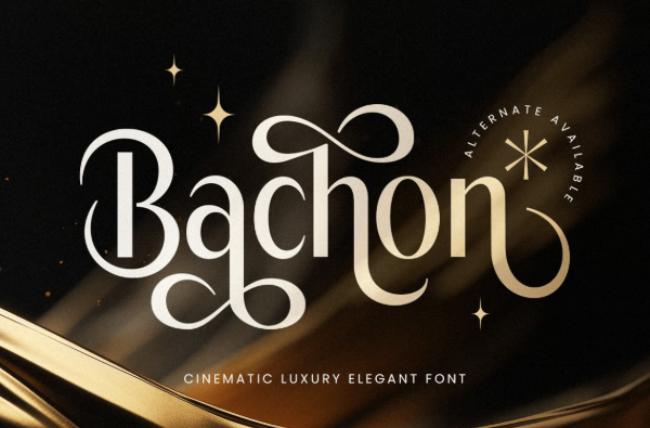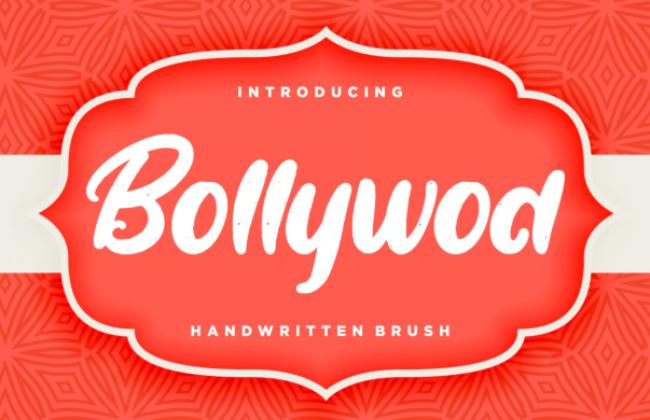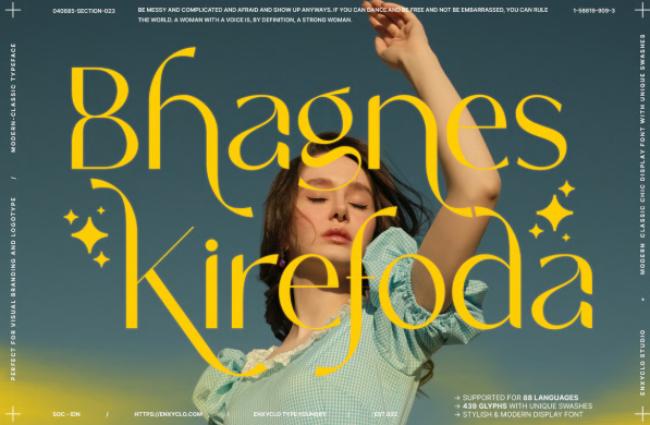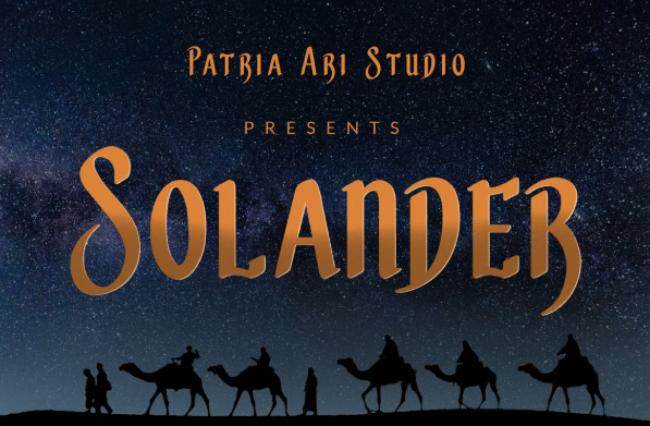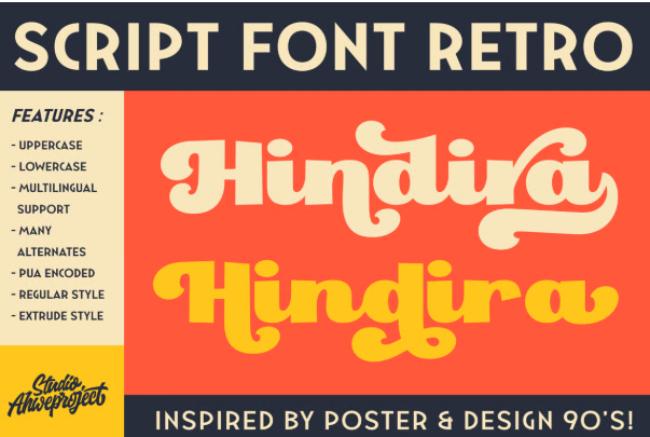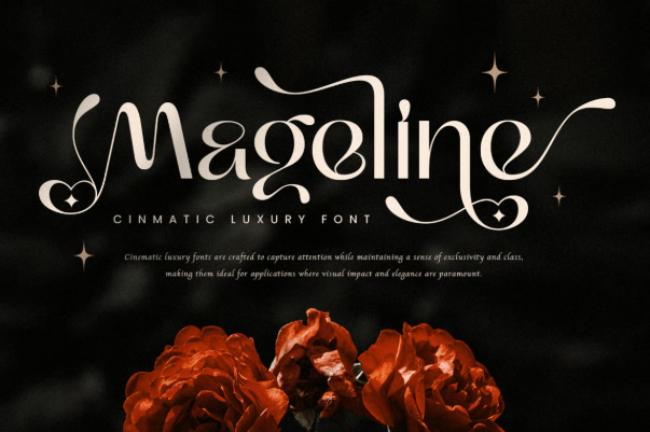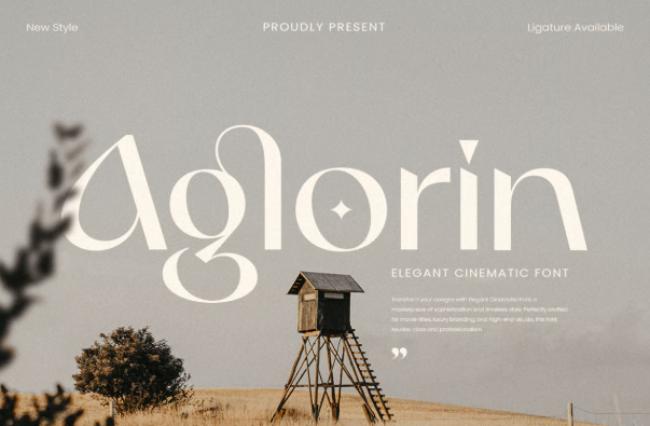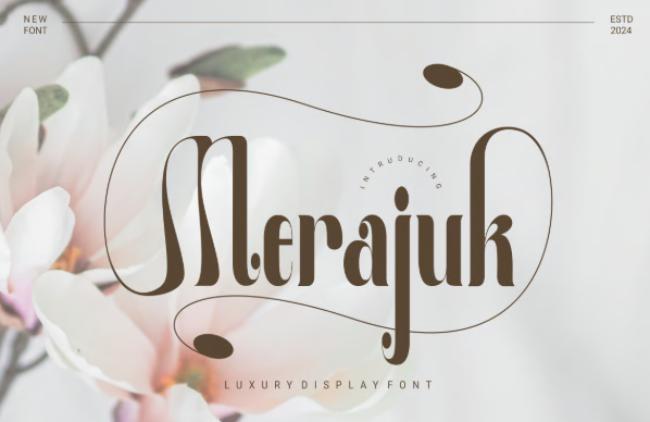
Bollywood fonts capture the vibrant essence of Indian cinema with their dramatic flair and cultural authenticity. Whether you’re designing movie posters, cultural events, or brand identities, these Bollywood style fonts bring the magic of Indian storytelling to your projects. From elegant script styles to bold display typefaces, Bollywood fonts offer designers a rich palette of options that celebrate India’s cinematic heritage. Each Bollywood font in this collection carries its own personality – some channeling vintage poster aesthetics while others embrace modern sophistication. These carefully curated Bollywood style fonts will transform your designs with their distinctive character and cultural depth.
Bachon – Cinematic Luxury Elegant Bollywood Font
BACHON delivers cinematic grandeur with its luxurious appeal and sophisticated styling. The typeface showcases elegant contrasts and smooth curves that evoke timeless beauty, making it an excellent choice for premium brand identities, movie credits, upscale product packaging, and fashion magazine layouts.
Bollywod Handwritten Bollywood Font
Bollywod brings authentic handwritten charm to your creative projects. This versatile typeface works wonderfully for brand development, logo creation, wedding invitations, social media graphics, marketing campaigns, product labels, design projects, photography watermarks, invitation cards, and stationery items that need a personal touch.
Bhagnes Kirefoda – Modern Chic Display Bollywood Font
NCL BHAGNES KIREFODA stands out as a contemporary sans-serif design featuring distinctive decorative elements. This expertly crafted typeface has been developed to become a designer favorite, capable of elevating any creative concept to professional standards. While optimized for large text applications, it retains its visual appeal even in smaller sizes.
Solander Bollywood Style Font
Solander features bold, angular letterforms designed to strengthen your brand presence and project identity. This dynamic typeface excels in various applications including logo design, brand development, headline text, poster creation, signage systems, advertising materials, inspirational quotes, product packaging, design labels, photography branding, watermarks, special event materials, and versatile design projects.
Hindira Bollywood Font
Prepare to be captivated by Hindira, a nostalgic script typeface drawing inspiration from 1990s poster aesthetics and retro design culture. With its bold, playful, and character-rich letterforms, Hindira transforms your creative work into something truly memorable and distinctive.
Mageline – Cinematic Luxury Bollywood Font
Mageline represents a sophisticated sans-serif design that masterfully combines grace with strength in an enduring style. Created specifically for premium applications like film credits, fashion brand identity, luxury product packaging, and editorial publications, Mageline provides dramatic yet refined visual impact. Every character is meticulously crafted to deliver both aesthetic beauty and typographic power to your visual narratives.
Aglorin – Elegant Cinematic Bollywood Font
Aglorin represents sophisticated cinematic typography created to infuse elegance and theatrical drama into every design composition. Featuring polished letterforms and harmonious contrast, Aglorin works beautifully for film titles, fashion editorial content, premium branding initiatives, and luxury packaging solutions.
Merajuk Bollywood Style Font
Merajuk offers distinctive typography that helps communicate your design message with clarity and impact. This versatile typeface works exceptionally well for striking displays, product labeling, apparel design, movie scenes, poster creation, film titles, concert graphics, album artwork, logo development, and numerous other creative applications.
Windhavi – Hindi Display Bollywood Font
Windhavi Marathi Display Font
Windhavi showcases bold and dynamic display characteristics with contemporary styling, making it exceptional for headline text, poster designs, and digital marketing campaigns that need strong visual presence.
Night Hindi – Display Bollywood Font
Night Hindi Marathi Font
Night Hindi delivers powerful drama through its bold, angular character design, making it perfect for dark-themed projects and cinematic visuals where strong, sharp typography creates maximum impact.
Bombaya Vintage Display Bollywood Font
Bombaya Vintage Marathi Font
Drawing inspiration from classic Bollywood cinema posters, Bombaya brings nostalgic charm to your Marathi typography while maintaining a stylish vintage aesthetic that captures the golden age of Indian cinema.
Kajoly – Hindi Display Bollywood Font
Kajoly Hindi Marathi Font
Kajoly offers clean, adaptable typography with strong visual impact, making it ideal for headlines, brand identity development, and editorial design projects that require commanding presence and excellent readability.
Maharani – Modern Serif Bollywood Font
Maharani Modern Marathi Serif Font
Maharani beautifully balances sophistication with minimalist design principles, creating a refined Marathi font that’s perfect for premium branding projects and sophisticated editorial layouts.
Hindi Raj – Festive Indian Devanagari Traditional Bollywood Font
Hindi Raj Marathi Font
This lively Marathi typeface combines authentic Devanagari traditions with celebratory design elements, making it ideal for wedding invitations, greeting cards, and festival promotional materials that celebrate Indian culture.
Mahatie – Traditional Hindi Bollywood Font
Mahatie Traditional Marathi Font
Mahatie presents graceful traditional Marathi typography that’s perfectly suited for religious publications, cultural banners, and ceremonial print materials that honor Indian heritage and spiritual traditions.
Mahaputra – Elegant Display Bollywood Font
Mahaputra Elegant Marathi Font
Mahaputra embodies graceful Marathi display typography with luxurious characteristics, making it an excellent choice for upscale invitation design and premium branding projects that demand elegance.
Niranjan – Hindi Bollywood Font
Niranjan Marathi Font
Niranjan features traditional Marathi styling that’s perfect for heritage-focused projects, spiritual book design, and Indian language publications that require authentic cultural representation.
Bhenagra Bollywood Style Font
Bhenagra Bold Marathi Font
Bhenagra presents bold, experimental Marathi typography that excels in artistic title design and unconventional graphic layouts where creativity and innovation take center stage.
Hindi Display Chandira Bollywood Font
Chandira Display Marathi Font
Chandira offers stylish display typography in Marathi script, making it suitable for decorative applications, brand identity development, and poster design projects that need distinctive character.
Sundarta Bollywood Font
Sundarta Vintage Marathi Font
Sundarta truly lives up to its beautiful name, featuring gorgeous vintage curves that make it an ideal Marathi typeface for elegant invitation design and sophisticated label applications.
Vagodha – Retro Vintage Script Bollywood Font
Vagodha Retro Marathi Script Font
Vagodha masterfully blends script-style letterforms with nostalgic retro aesthetics, making it perfect for Marathi advertising campaigns, signage projects, and cultural branding initiatives.
Krishna – Authentic Indian Typeface Bollywood Font
Krishna Indian Marathi Typeface
Krishna represents authentic Marathi typography that honors traditional Indian calligraphy traditions, making it ideal for classic design projects that celebrate cultural heritage and artistic tradition.
Maharani – Modern Display Serif Bollywood Font
Maharani Display Marathi Serif
This enhanced version of Maharani features contemporary serif styling in Marathi typography, making it perfect for fashion branding, premium packaging design, and luxury marketing materials.
Agodha Bollywood Style Font
Agodha Modern Marathi Sans Font
Agodha showcases bold sans-serif Marathi design with geometric precision, making it perfect for digital media applications, technology branding, and modern web typography projects.
Mahabat Bollywood Font
Mahabat Display Marathi Font
Mahabat adds decorative sophistication to Marathi typography, making it ideal for grand celebrations, important announcements, and display design projects that require ceremonial elegance.
Qasira – A Modern Hindi Bollywood Font
Qasira Modern Marathi Font
Qasira represents contemporary Marathi typography that perfectly balances clarity with elegance, making it ideal for modern Marathi publications and digital content applications.
Ghutamila – Traditional Hindi Display Bollywood Font
Ghutamila Traditional Marathi Display Font
Ghutamila features beautifully ornate traditional Marathi styling, making it perfect for spiritual themes, ritual ceremonies, and heritage branding projects that celebrate Indian cultural traditions.
Fatekha Bollywood Style Font
Fatekha Marathi Typeface
Fatekha presents bold, experimental Marathi typography with dynamic energy, making it perfect for urban poster design and artistic typography projects that push creative boundaries.
Nistha – Hindi Display Bollywood Font
Nistha represents distinctive Hindi display typography that merges traditional Devanagari script elements with contemporary design principles. Perfect for headline text, poster design, and branding projects that require authentic Indian cultural expression.
Qawatone – Hindi Display Bollywood Font
Qawatone delivers bold and expressive Hindi display typography with commanding character presence. This typeface excels in attention-grabbing headers, advertising materials, and creative projects requiring impactful Hindi typography solutions.
Ganesha Aesthetic Bollywood Font
Ganesha Aesthetic infuses spiritual and cultural essence into your designs through its decorative and ornamental styling. This typeface captures the divine beauty of Indian aesthetics, making it perfect for religious projects, cultural events, and artistic applications.
Kantata Aksara – Ethnic Type Bollywood Font
Kantata Aksara celebrates traditional Indian script forms while maintaining contemporary readability. Its unique character design makes it suitable for cultural events, traditional branding initiatives, and heritage-themed projects.
Namhala Bollywood Style Font
Namhala showcases flowing, elegant letterforms that work beautifully for both Hindi and Arabic scripts. This adaptable typeface offers graceful curves and balanced proportions, ideal for luxury branding and sophisticated design applications.
India Nishwary Bollywood Font
India Nishwary Font embodies the rich typographic heritage of India through its carefully crafted letterforms. This typeface is perfect for projects requiring authentic Indian character while maintaining excellent readability across various applications.
Begadul Bollywood Style Font
Begadul showcases elegant serif typography with contrasting thickness variations, making it highly suitable for display applications like titles, greeting cards, magazine covers, and numerous other creative projects. This typeface will enhance your design library, transforming every project into an artistic masterpiece.
Anindya Beautiful Bollywood Font
Anindya Beautiful represents Modern Elegant Script Typography from MAH Studios, offering premium script styling perfect for any project requiring distinctive and premium visual appeal.
Rakha Bollywood Style Font
Rakha showcases contemporary typography with strong geometric influences and clean lines. This versatile typeface performs excellently in modern branding, web design, and editorial layouts where clarity and style are equally important.
Lagath Bollywood Font
Lagath presents bold and confident character with distinctive letterforms that command attention. This typeface excels in impactful headlines, logo design, and any project requiring strong typographic presence.
Kholic Bollywood Style Font
Kholic features special modern stylistic design created with precise accuracy and beautiful curves. With alternative characters and ligatures that make your work very special, it’s perfect for branding design, logos, greeting cards, title packaging, and other designs. Use this typeface to make your work even more amazing.
The Bajaka – A Quirky Playful Bollywood Font
The Bajaka represents Quirky Playful Typography loaded with dynamic energy and an amusing character. This beautiful typeface carries strong personality and gentle curves, making it the perfect choice for your logo or packaging design projects.
Bhentay Typeface Bollywood Font
Bhentay presents experimental gothic serif typography perfect for any headline needs, especially movie or film posters, magazines, creative companies, video games, mobile games, horror, thriller, documentary projects, plus printed design, web fonts, branding, logo types, and social media promotion.
Bangilan Bollywood Style Font
Bangilan showcases unique blend of traditional and modern design elements, creating distinctive typography that stands out. This typeface is excellent for creative projects, artistic branding, and designs that need cultural authenticity with contemporary appeal.
Bilaniroh Bollywood Font
Bilaniroh delivers elegant and sophisticated letterforms with refined details and balanced proportions. This versatile typeface works beautifully for luxury branding, editorial design, and high-end marketing materials where elegance is paramount.
Kalundra Bollywood Style Font
Kalundra masterfully combines artistic flair with functional design, creating typography that’s both visually appealing and highly readable. Perfect for creative agencies, artistic projects, and brands that want to showcase innovation and creativity.
KAIVALYA – Cultural Type Bollywood Font
KAIVALYA represents cultural typography that celebrates Indian heritage through carefully designed letterforms. This typeface is perfect for cultural institutions, traditional businesses, and projects that require authentic Indian typographic expression.
Balgakur Bollywood Font
Balgakur showcases robust and commanding typography with strong character presence. This typeface is ideal for bold headlines, impactful branding, and designs that need to make powerful statements while maintaining cultural authenticity.
Baswaran Bollywood Style Font
Baswaran features flowing, organic letterforms that create warm and inviting feelings. This typeface is excellent for hospitality branding, wellness products, and designs that need to convey comfort and approachability.
Bragitha – Stylish Bollywood Font
Bragitha Font works wonderfully for various media like special events, Christmas, Valentine’s Day, invitations, logos, packaging, posters, wedding materials, movie titles, book titles, social media, branding, and other creative applications.
Kaligash Bollywood Style Font